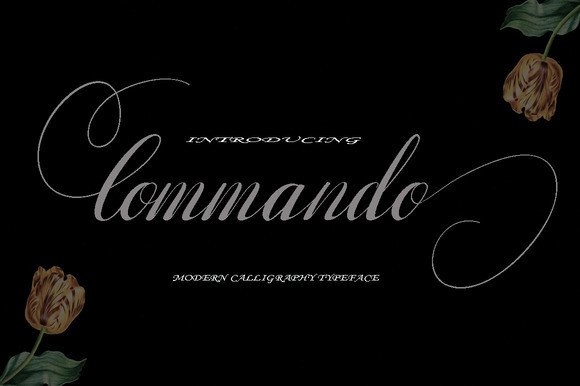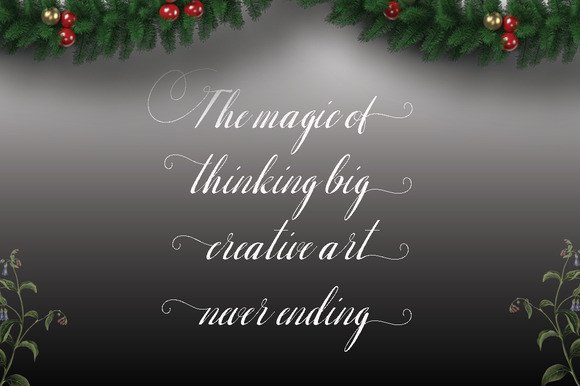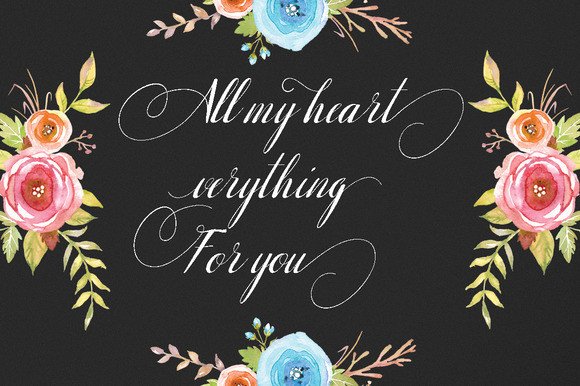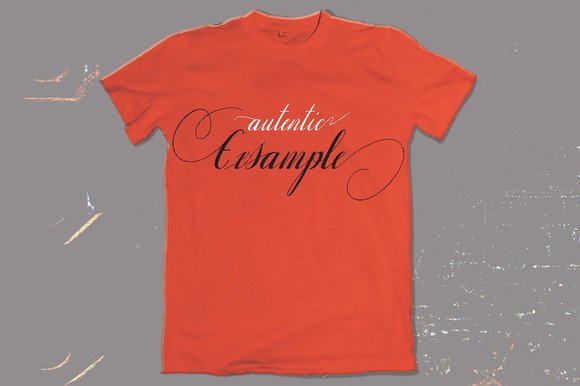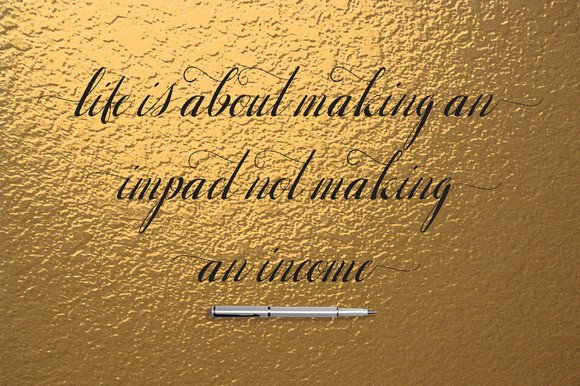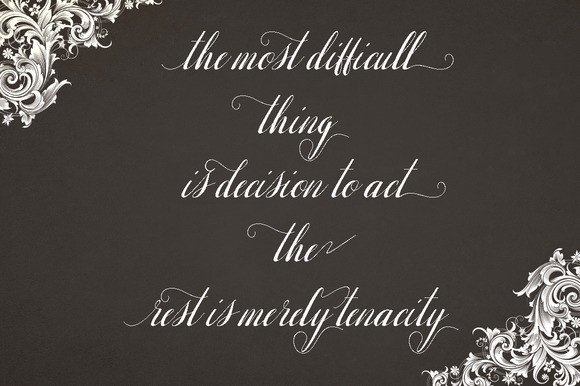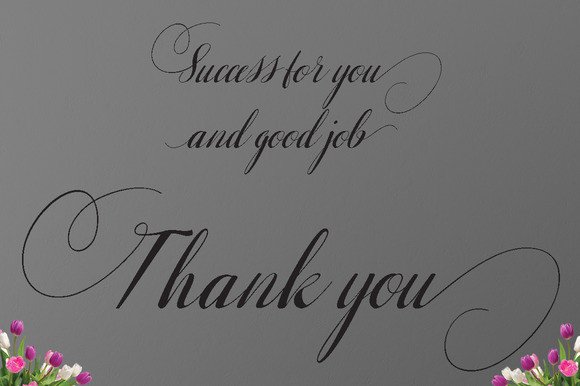
Commando Font
About Commando Font
Commando is elegant, modern calligraphy. The writing style is very natural en will look beautiful on wedding invitations, posters, badges, t-shirts and anything else you can imagine with this elegant typeface.